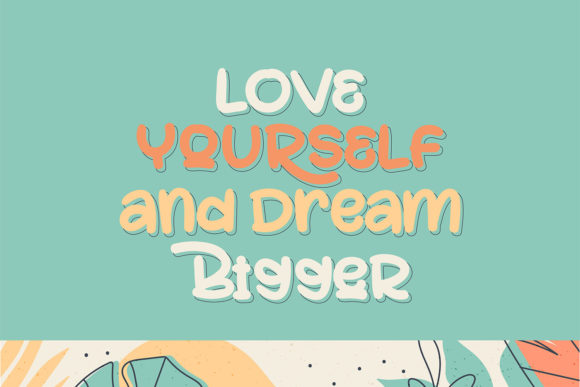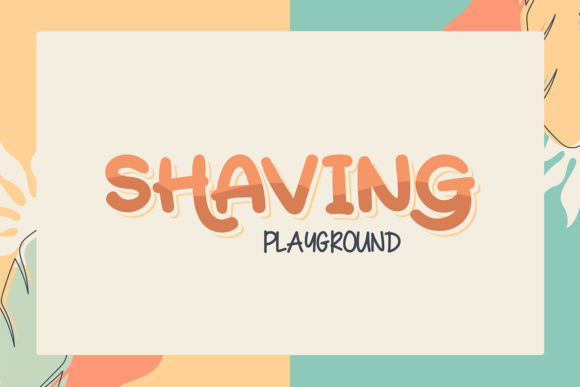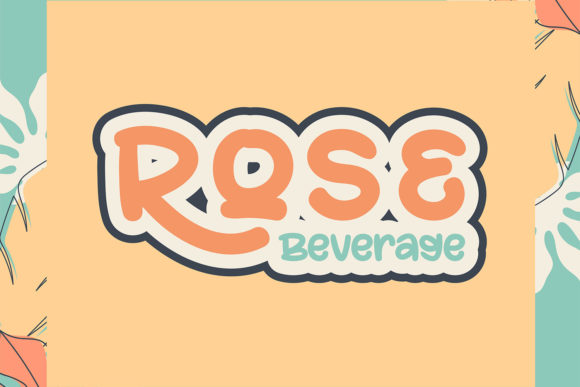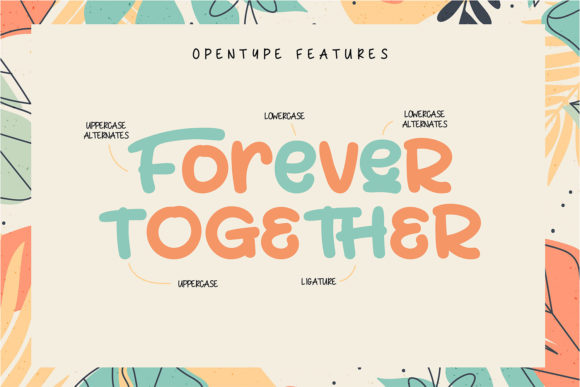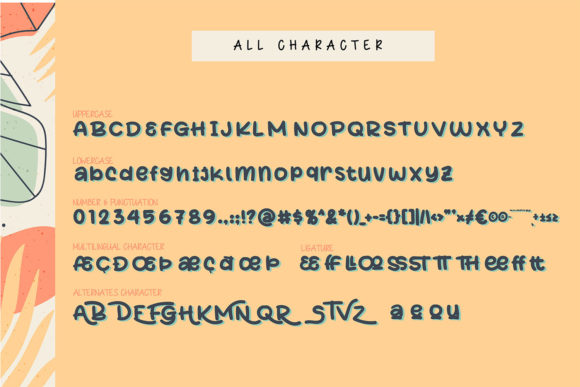
About Fine Marker Font
Fine Marker is a simple, fun and adaptable handwritten font. Its informal style and casual vibe will make this font a go-to choice for each of the creations that require a relaxed touch.